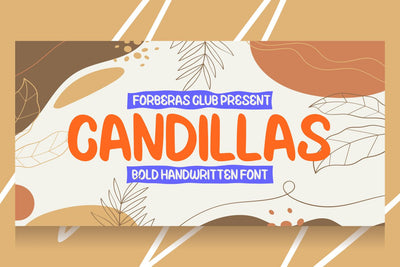
Candillas
Introducing Candillas by Forberas Club
Candillas is a Modern Handwritten Font. Candillas is perfect for book cover, product packaging, branding project, megazine, social media, wedding, or just used to express words above the background.This font includes TTF and OTF, This font also multilingual support.